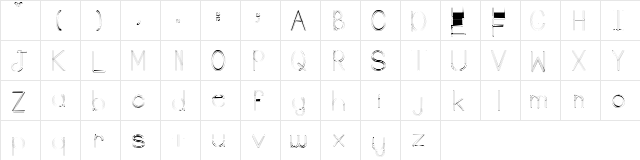
Walker Thin
Design Context for Walker Typeface
Walker offers clean, dependable letterforms without strong stylistic allegiance, making it a practical choice for designers who need flexibility. Its slender proportions lend an understated elegance to any composition.